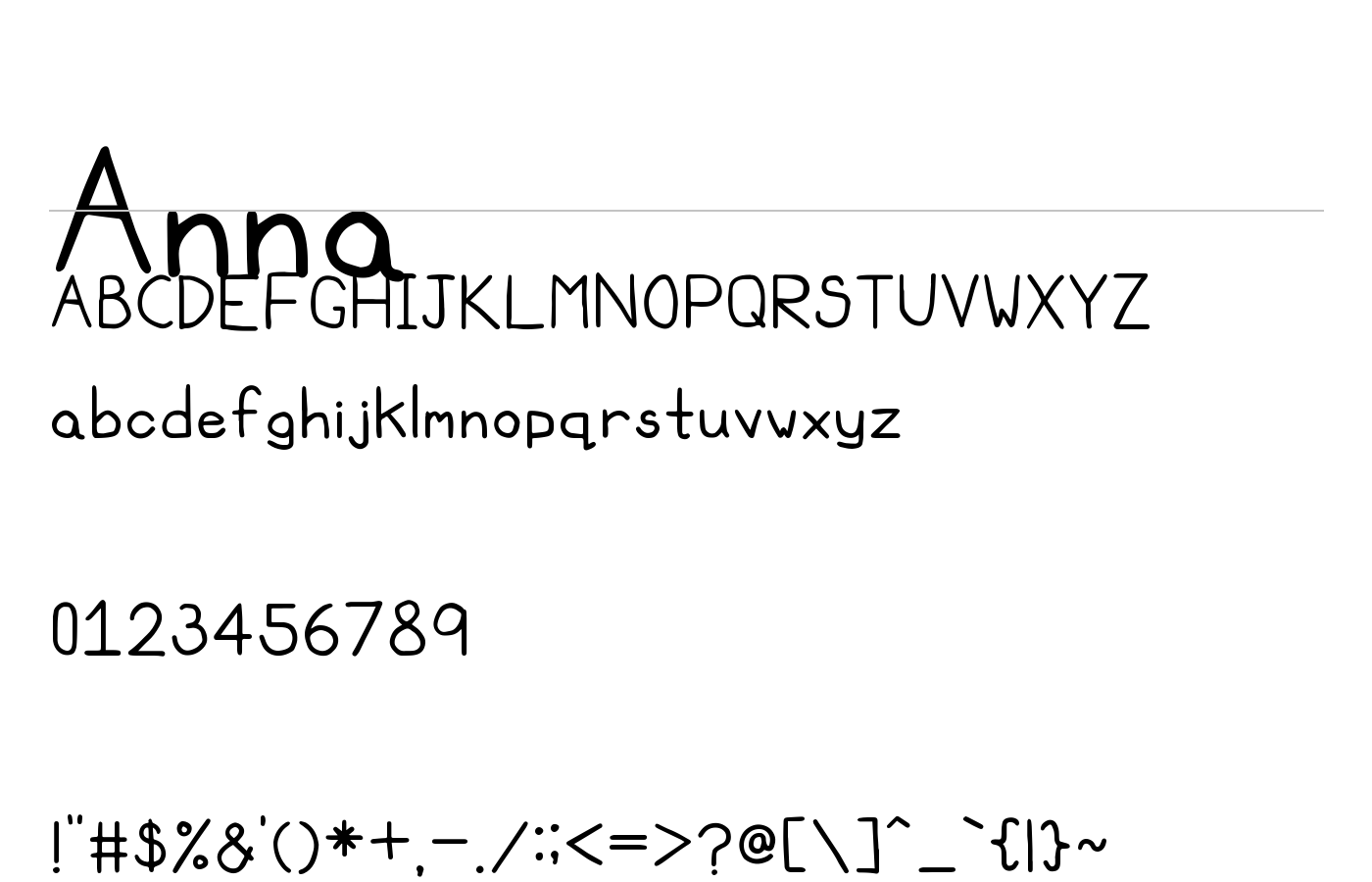
Anna Font is a charming and playful handwritten sans serif with a light weight and narrow width, giving it a friendly and approachable feel. Its simple, slightly irregular letterforms create a casual, organic look perfect for informal uses like children’s books, greeting cards, and personal branding. This font works well for engaging headlines and short texts where warmth and personality are key.
Anna Font